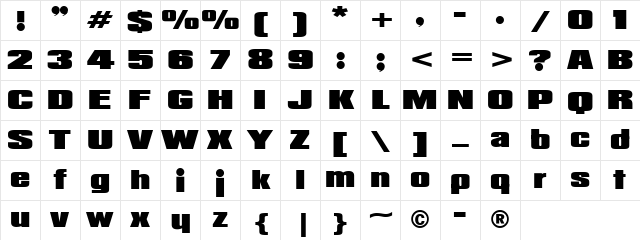
Padaloma Regular
Padaloma Family
Design Context for Padaloma
Padaloma is a composed and adaptable typeface that performs quietly and consistently across a wide range of design contexts.
Pro Tip: Use Padaloma in both headline and body roles to test its range before committing to a single application.